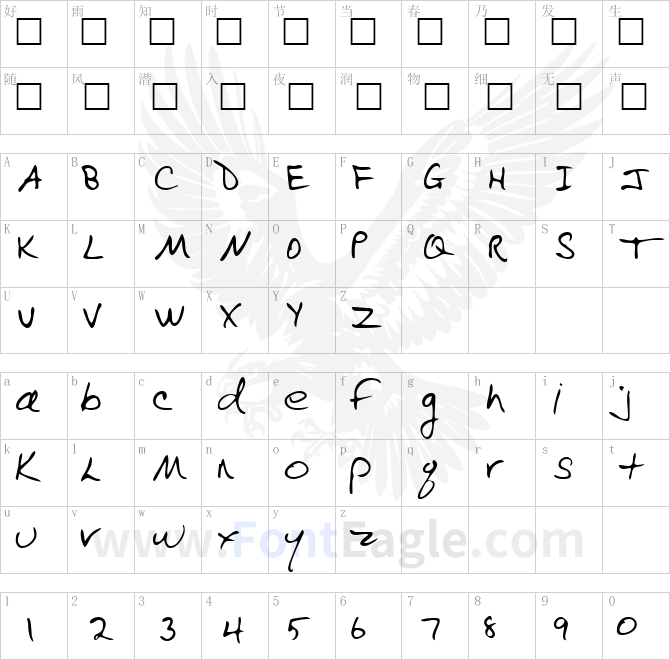
- Font name:EvelynsHand
- Font Subfamily ID:Weatherly Systems, Inc. EvelynsHand Regular
- Font Full Name:EvelynsHand Regular
- Postscript:EvelynsHand-Plain